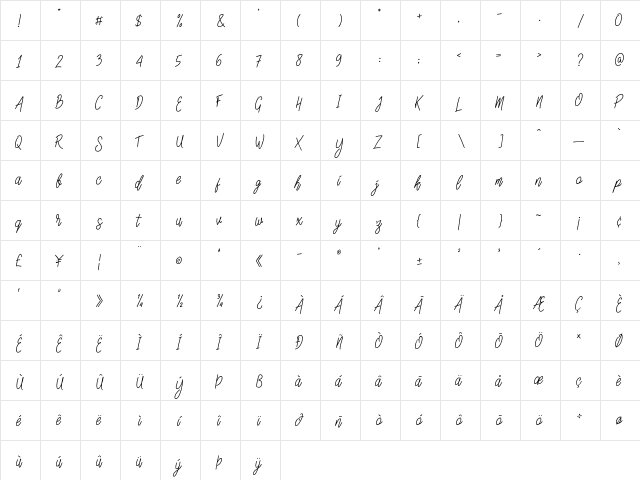
Slainte Script Demo Regular
Design Context for Slainte Script Demo Typeface
Slainte Script Demo brings a calligraphic fluidity to the page — its connecting strokes and expressive curves give it an unmistakably human quality.
Font Pairing: Combine Slainte Script Demo with a simple geometric sans for maximum contrast — the tension between flowing curves and clean structure is a classic typographic pairing.
Pro Tip: Pair Slainte Script Demo with a clean sans-serif for supporting text. The contrast between fluid script and geometric structure creates an elegant typographic hierarchy.